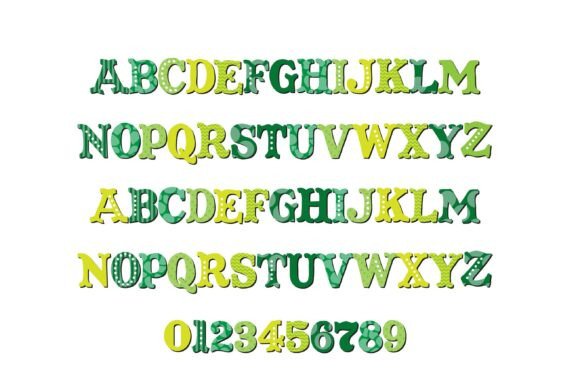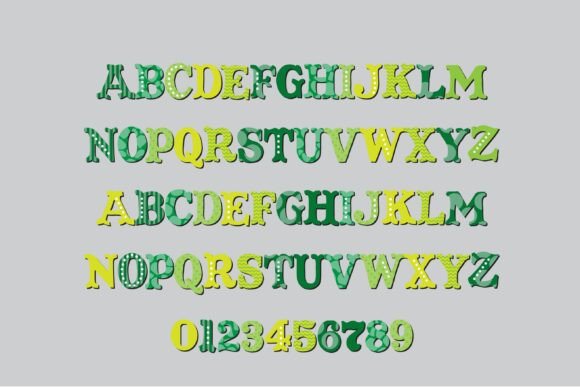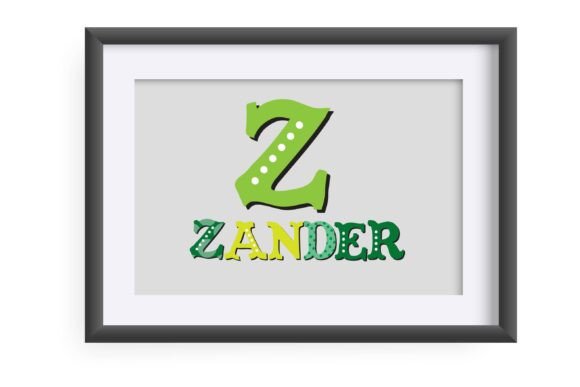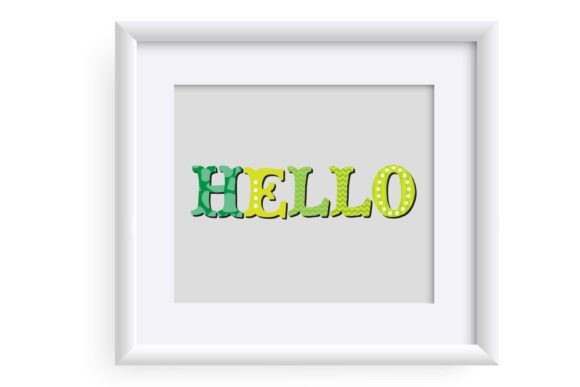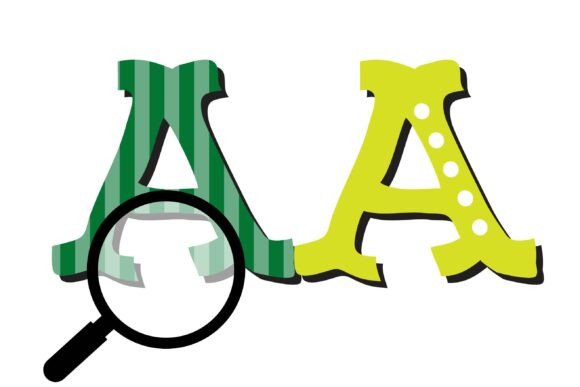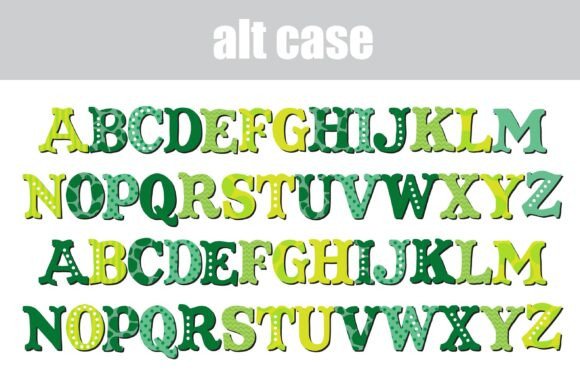
Introducing the Green Grind Font: A Vibrant Circus-Style Font for Your Designs
Are you looking for a font that adds a pop of color and personality to your designs? Look no further than the Green Grind Font, a full-color font that features a circus-style font in a stunning green color palette. This font is perfect for designers and crafters who want to create eye-catching titles, displays, posters, and more.
What Makes the Green Grind Font Special?
The Green Grind Font is a unique and versatile font that offers a range of features that set it apart from other fonts. Here are some of its key characteristics:
• Circus-style font: The Green Grind Font has a fun and playful circus-style design that adds a touch of whimsy to your designs.
• Green color palette: The font features a beautiful green color palette that is perfect for designs that require a natural and fresh look.
• Full-color SVG font: The Green Grind Font is a full-color SVG font, which means it can be used to create complex illustrations and designs with a range of colors.
• Alt version with additional colors: The font comes with an alt version that can be accessed through your system’s character map, which contains additional colors for all the letters.
How to Use the Green Grind Font
The Green Grind Font is easy to use and can be incorporated into a variety of designs. Here are some ideas for using this font:
• Titles and headings: Use the Green Grind Font to create eye-catching titles and headings for your designs.
• Posters and flyers: The font’s circus-style design and bright green color palette make it perfect for creating posters and flyers that grab attention.
• Logos and branding: The Green Grind Font can be used to create unique and memorable logos and branding elements.
• Social media graphics: Use the font to create engaging social media graphics that stand out from the crowd.
The Green Grind Font is a vibrant and versatile font that is perfect for designers and crafters who want to add a touch of personality to their designs. With its circus-style design, green color palette, and full-color SVG capabilities, this font is ideal for creating eye-catching titles, displays, posters, and more. Whether you’re a seasoned designer or just starting out, the Green Grind Font is a great addition to your font library.